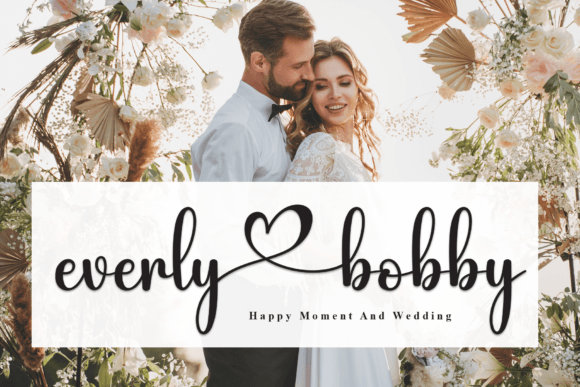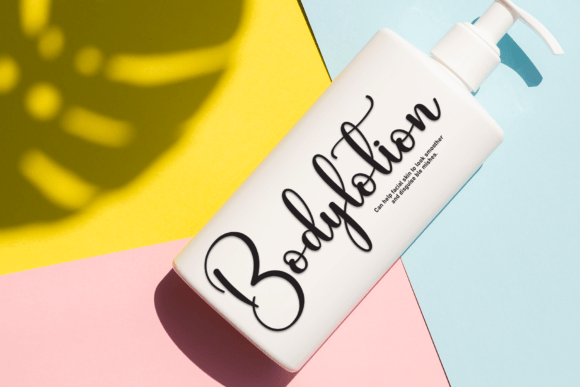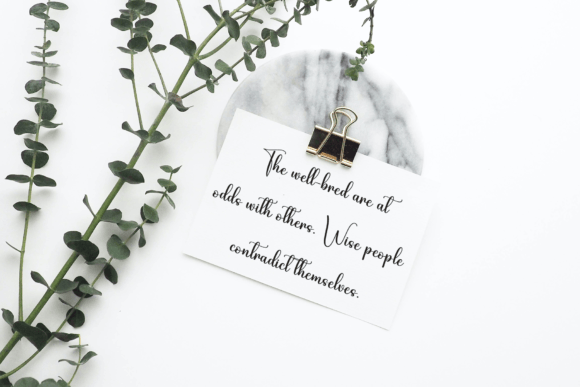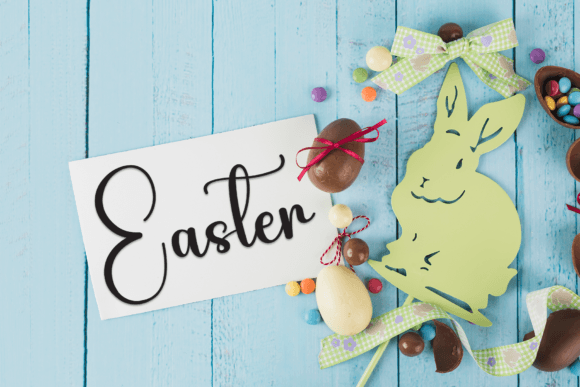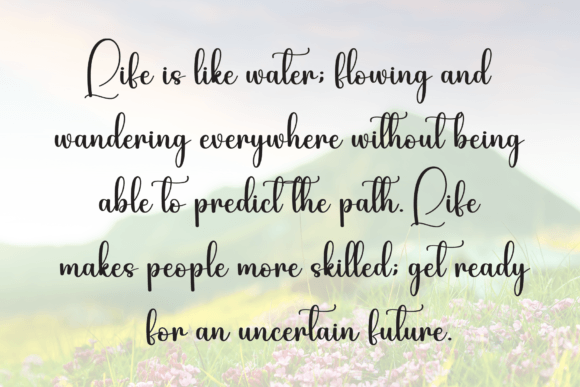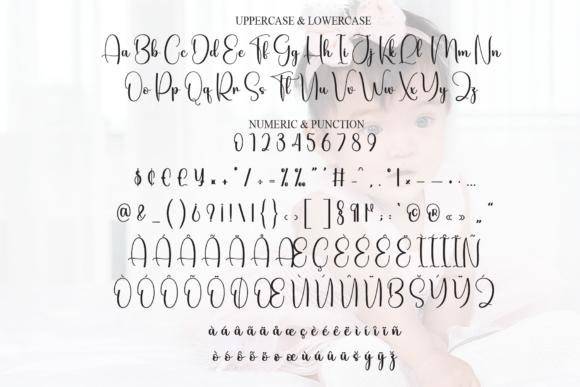
Baby Lady Font: Elevate Your Designs with Elegance and Personality
In the world of typography, fonts play a crucial role in conveying the tone and aesthetic of a design. For those seeking a modern and charming handwritten font that exudes elegance and personality, Baby Lady Font is an exceptional choice. This beautiful font is perfect for upscale invitations, personal branding, and chic editorial designs, offering a refined allure and warmth that can elevate any project.
The Characteristics of Baby Lady Font
Baby Lady Font is a modern, handwritten typeface that boasts graceful, flowing strokes and a sophisticated character. Its unique blend of elegance and playfulness makes it an ideal choice for designers and crafters looking to add a touch of luxury and whimsy to their work. The font’s refined and charming appearance is sure to captivate audiences and leave a lasting impression.
Uses of Baby Lady Font
The versatility of Baby Lady Font makes it suitable for a wide range of applications, including:
- Upscale Invitations: Whether it’s a wedding invitation, baby shower, or formal event, Baby Lady Font adds a touch of sophistication and glamour to any invitation.
- Personal Branding: For entrepreneurs and small business owners, Baby Lady Font can be used to create a unique and memorable brand identity that exudes elegance and professionalism.
- Chic Editorial Designs: From fashion magazines to lifestyle blogs, Baby Lady Font is perfect for editorial designs that require a touch of luxury and refinement.
Why Choose Baby Lady Font?
With so many fonts available, why choose Baby Lady Font? Here are a few reasons:
- Unique and Memorable: Baby Lady Font’s distinctive and charming appearance makes it stand out from more traditional fonts, ensuring that your designs will be remembered.
- Highly Versatile: Whether you’re designing for print or digital media, Baby Lady Font adapts seamlessly to different formats and sizes.
- Elegant and Refined: The font’s sophisticated character and flowing strokes evoke a sense of luxury and refinement, perfect for high-end designs.
Tips for Using Baby Lady Font
To get the most out of Baby Lady Font, consider the following tips:
- Pair with Neutral Colors: Baby Lady Font looks stunning when paired with neutral colors like black, white, and gray, which allow the font’s elegance to shine.
- Experiment with Sizes: Don’t be afraid to experiment with different font sizes to create visual interest and hierarchy in your designs.
- Add Decorative Elements: Consider adding decorative elements like ribbons, flowers, or other design elements to enhance the font’s charm and whimsy.
Baby Lady Font is a beautiful and versatile typeface that offers a unique blend of elegance and personality. Its modern and charming appearance makes it perfect for upscale invitations, personal branding, and chic editorial designs. With its refined allure and warmth, Baby Lady Font is sure to elevate any project and leave a lasting impression on audiences. Whether you’re a designer, crafter, or entrepreneur, Baby Lady Font is an excellent choice for anyone seeking to add a touch of luxury and sophistication to their work.